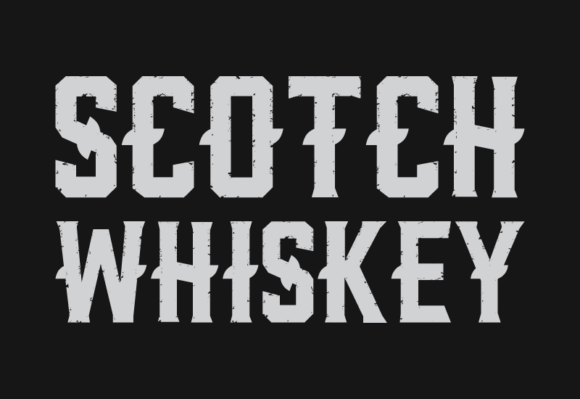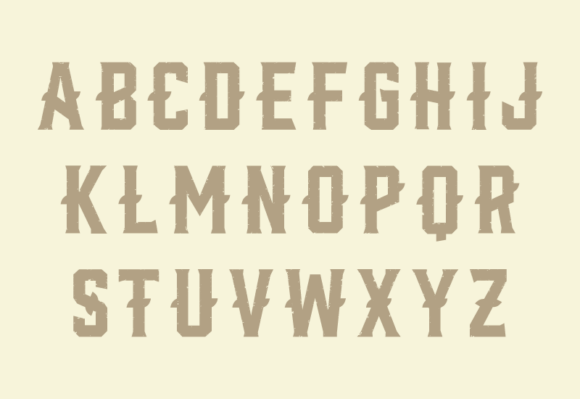
Introduction to Scotch Whiskey Font
Immerse yourself in the classic charm of Scotch Whiskey, a Western-style font intricately crafted to mirror an appealing retro aesthetic.
This artful font boasts well-balanced proportions that evoke a nostalgic atmosphere Tailored to radiate timeless allure, Scotch Whiskey serves as an ideal choice meant to complement Whiskey labels, logos, and branding with a vintage ambiance.
Key Features of Scotch Whiskey Font